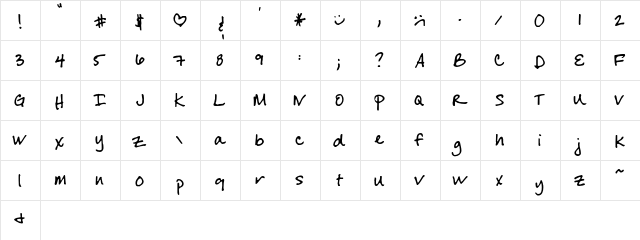
FG Cheryl Regular
| Foundry | Cheryl Flaim fonted by Font Garden |
| Designer | Ellinor Rapp |
Design Context for FG Cheryl Typeface
FG Cheryl takes a measured approach to typography — its balanced proportions and neutral character make it a reliable workhorse for both digital and print work.